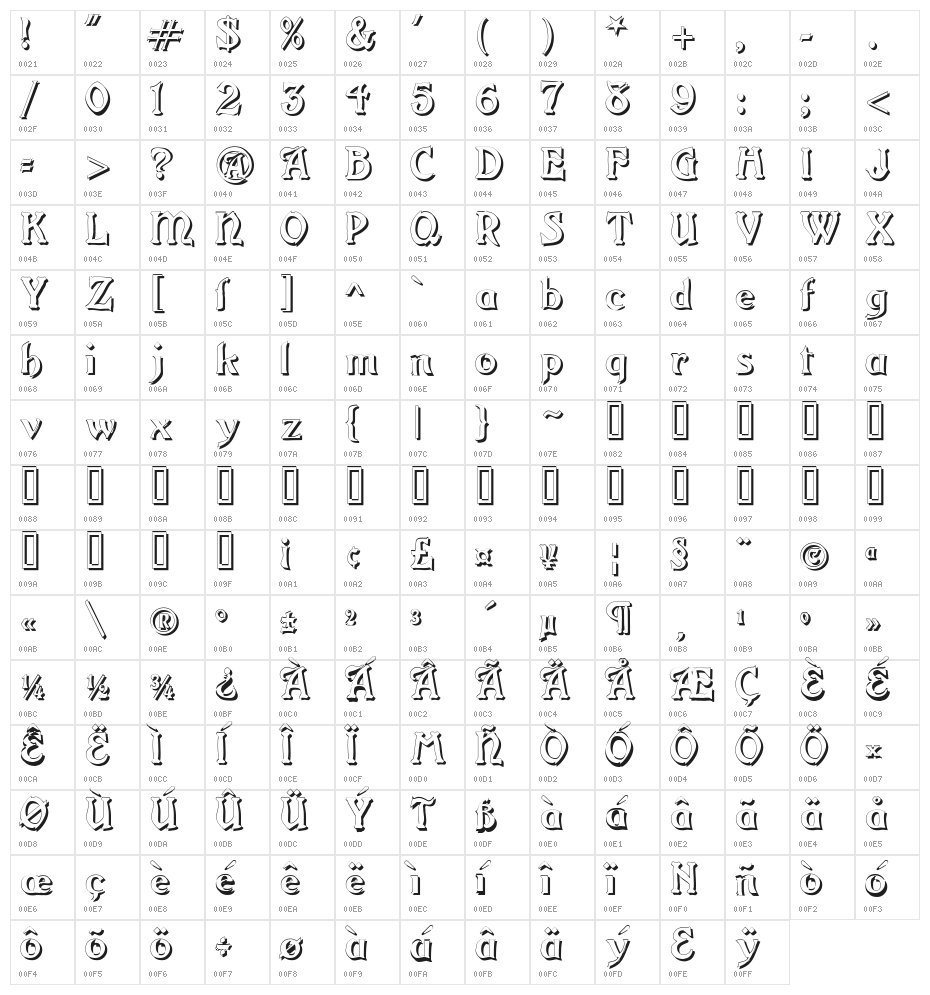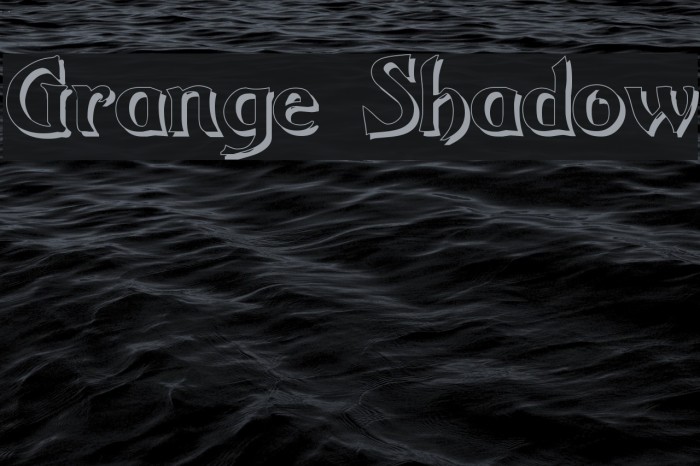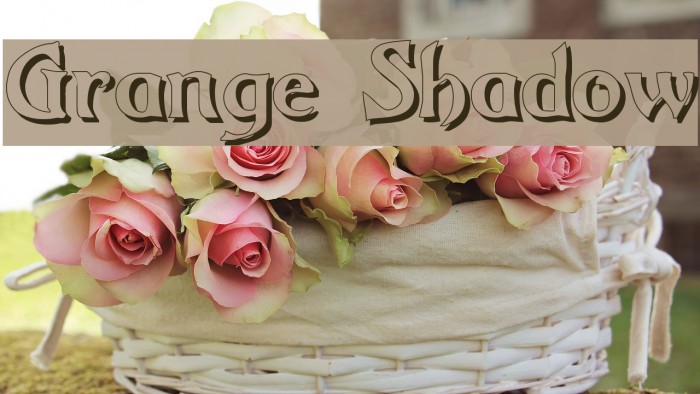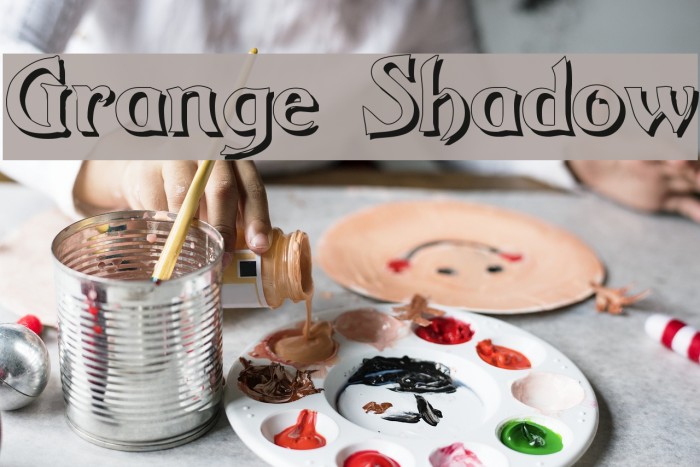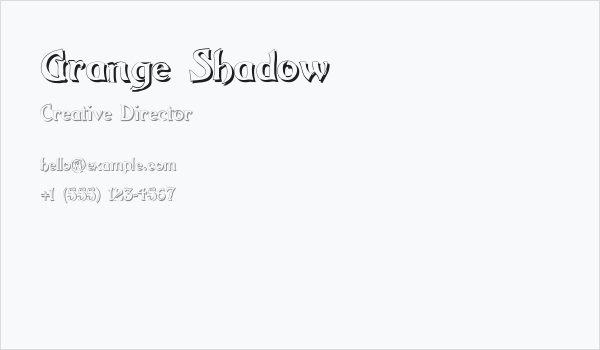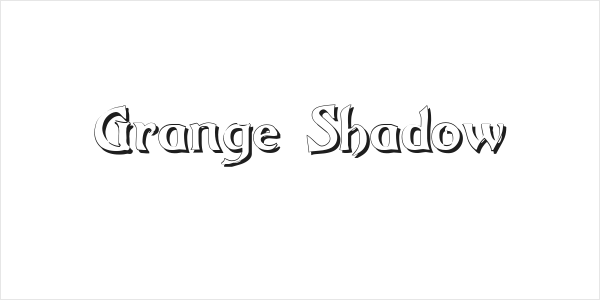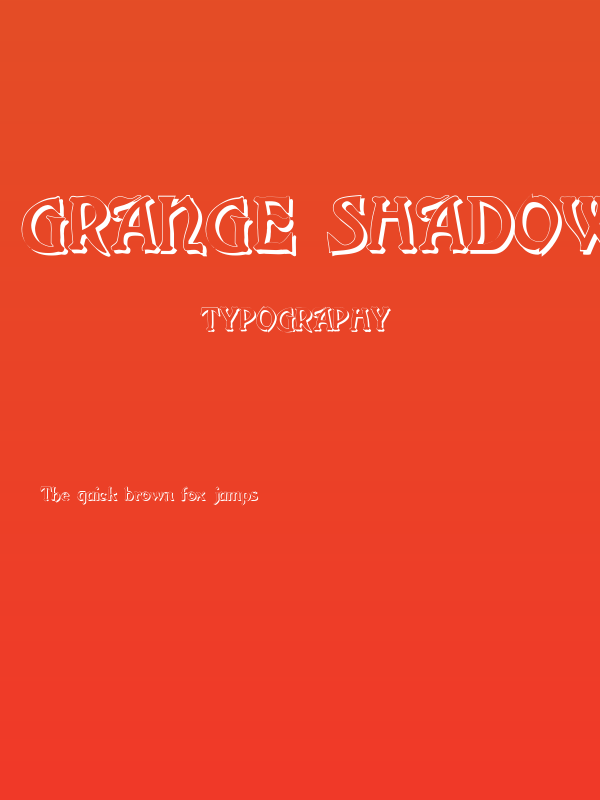
Grange Shadow Font
Grange Shadow Description
This font features a bold and dramatic style with a distinct shadow effect that gives each character a three-dimensional appearance. The uppercase and lowercase letters are designed with sharp, angular edges, creating a sense of movement and energy. The numbers and special characters maintain this dynamic style, ensuring consistency across all elements. The shadow effect adds depth, making the font stand out, especially in larger sizes. Its unique design is both eye-catching and memorable, suitable for projects that require a strong visual impact.